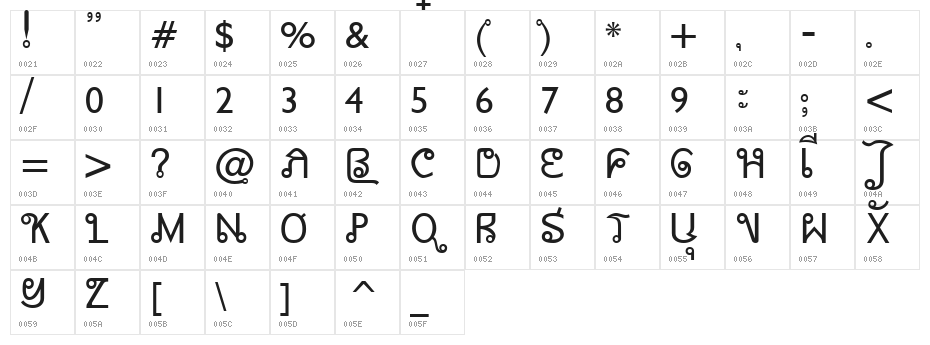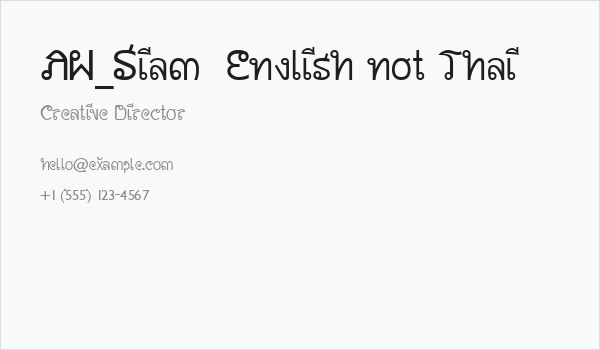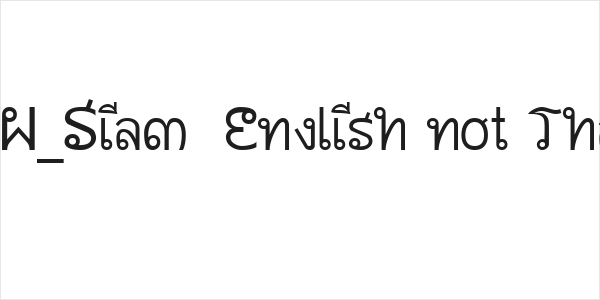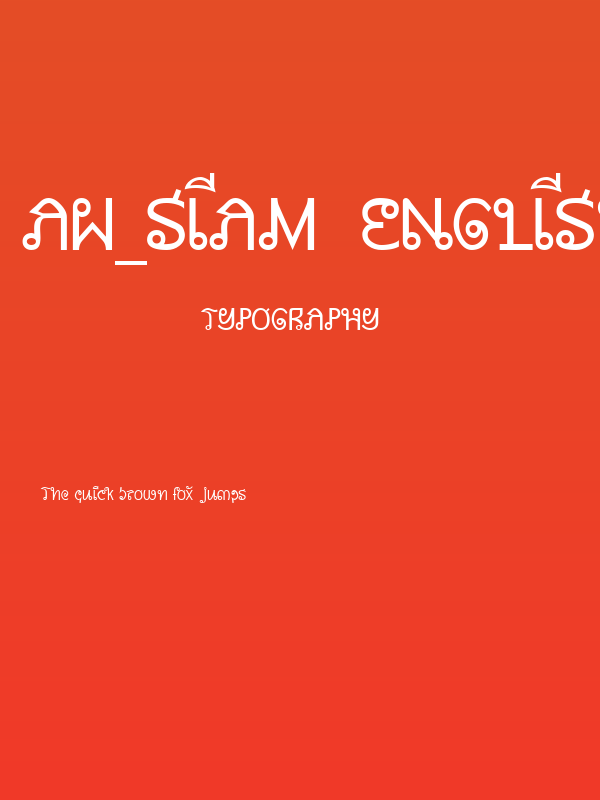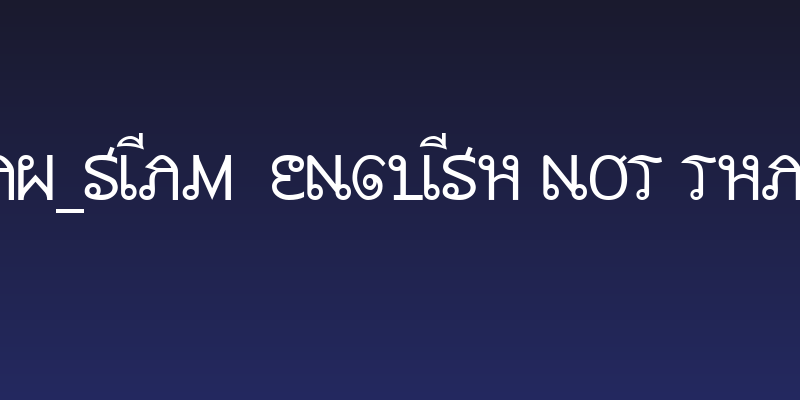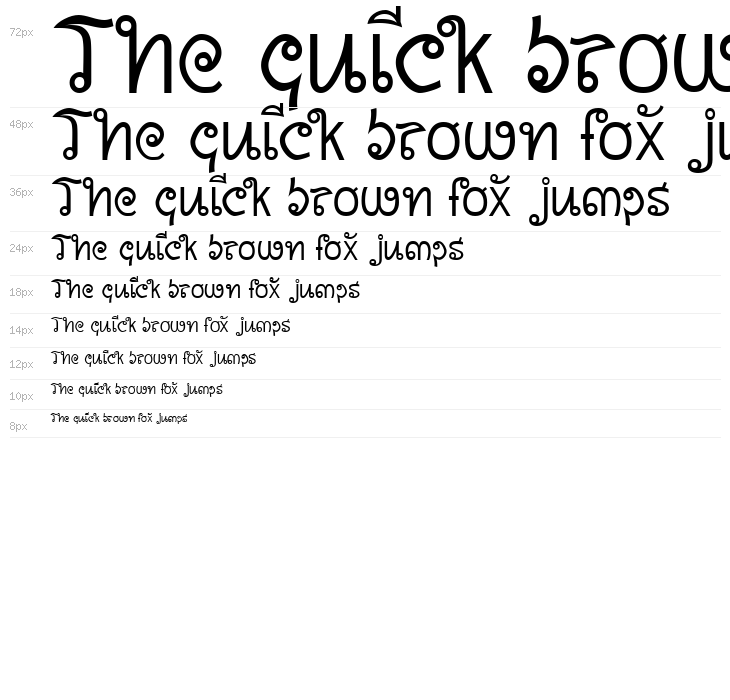
AW_Siam English not Thai Font
AW_Siam English not Thai Description
This font features a unique blend of traditional and modern elements, characterized by its decorative and ornate style. Each letter is adorned with intricate swirls and loops, giving it a distinct and artistic flair. The uppercase letters are particularly elaborate, with extended strokes and embellishments that add a touch of elegance. The lowercase letters maintain a consistent style, with rounded forms and subtle curves. Numbers and special characters follow the same decorative theme, ensuring a cohesive look across all glyphs. The overall design is eye-catching and suitable for creative projects that require a touch of sophistication and uniqueness.